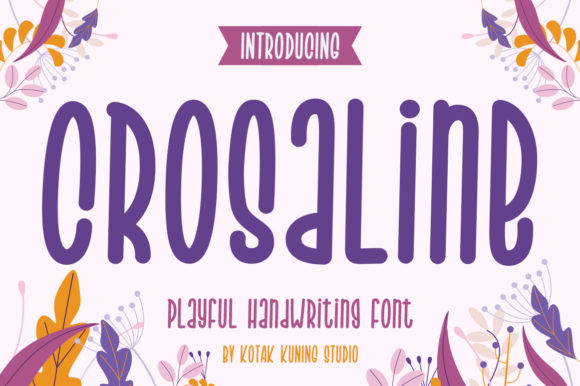
Introducing Crosaline Font, an extraordinary display font bursting with creativity and fun. Bold, energetic, and brimming with spirit, Crosaline adds an effervescent charm to every letter it graces. Crafted by the talented Kotak Kuning Studio, this gem turns your words into a captivating visual symphony.
With its vibrant personality, Crosaline invites you to make a statement. Unleash your imagination and pour your heart into your digital creations. Let Crosaline amplify your voice in the online world, injecting a dash of playfulness and uniqueness into every project. Its ability to transform ordinary text into an extraordinary spectacle will make your creations pop with personality.
Step into the spotlight and captivate your audience. Let their eyes dance across your enthralling content, drawn in by the whimsy and exuberance that Crosaline exudes. Watch as they interact with your pages, sharing your message with the world. Crosaline isn't just a font; it's a key to unlock the limitless potential of your words.
And the best part? Its versatility knows no bounds. Whether you're crafting eye-catching social media posts, designing a stellar logo, or crafting a memorable brand identity, Crosaline rises to the occasion. Whether it's digital or print, Crosaline makes its mark, captivating viewers and amplifying your message.